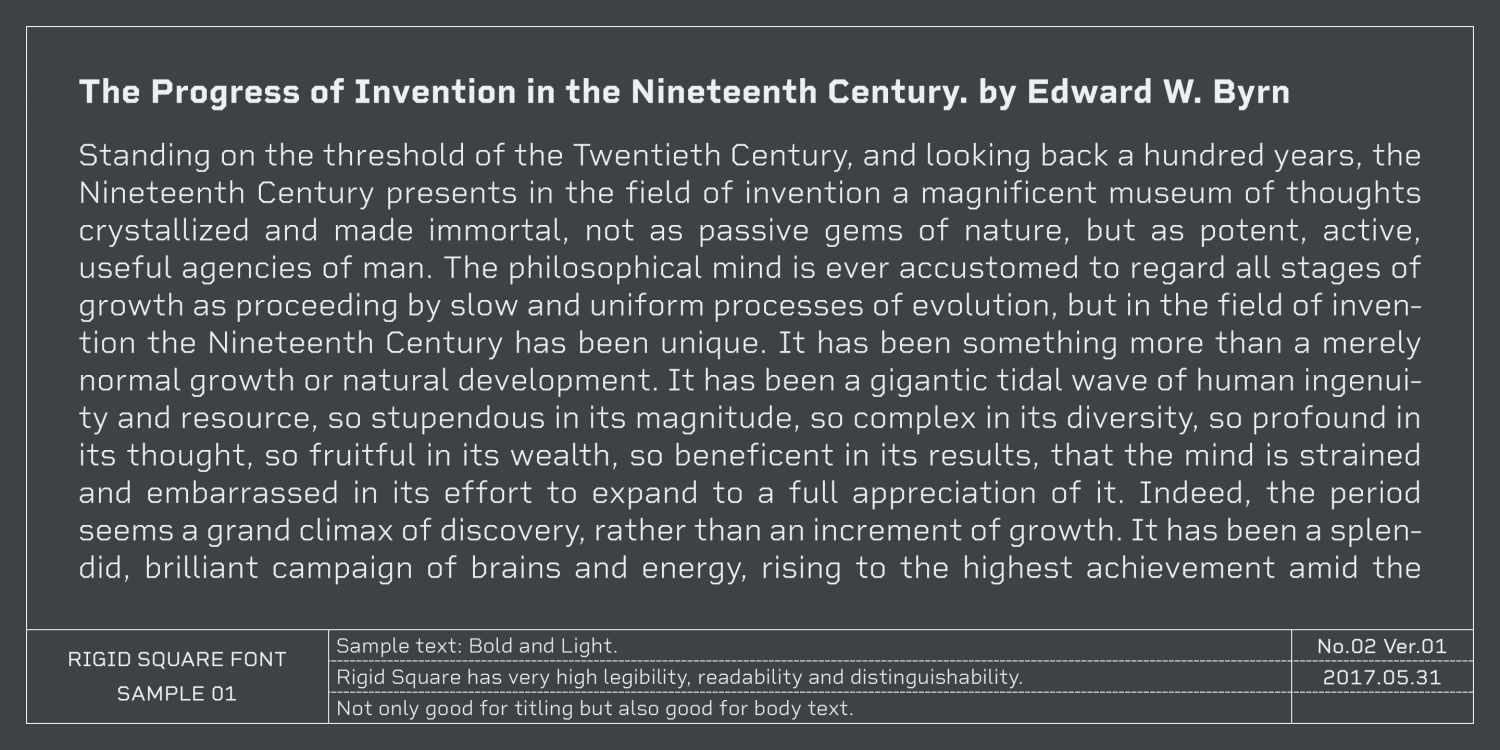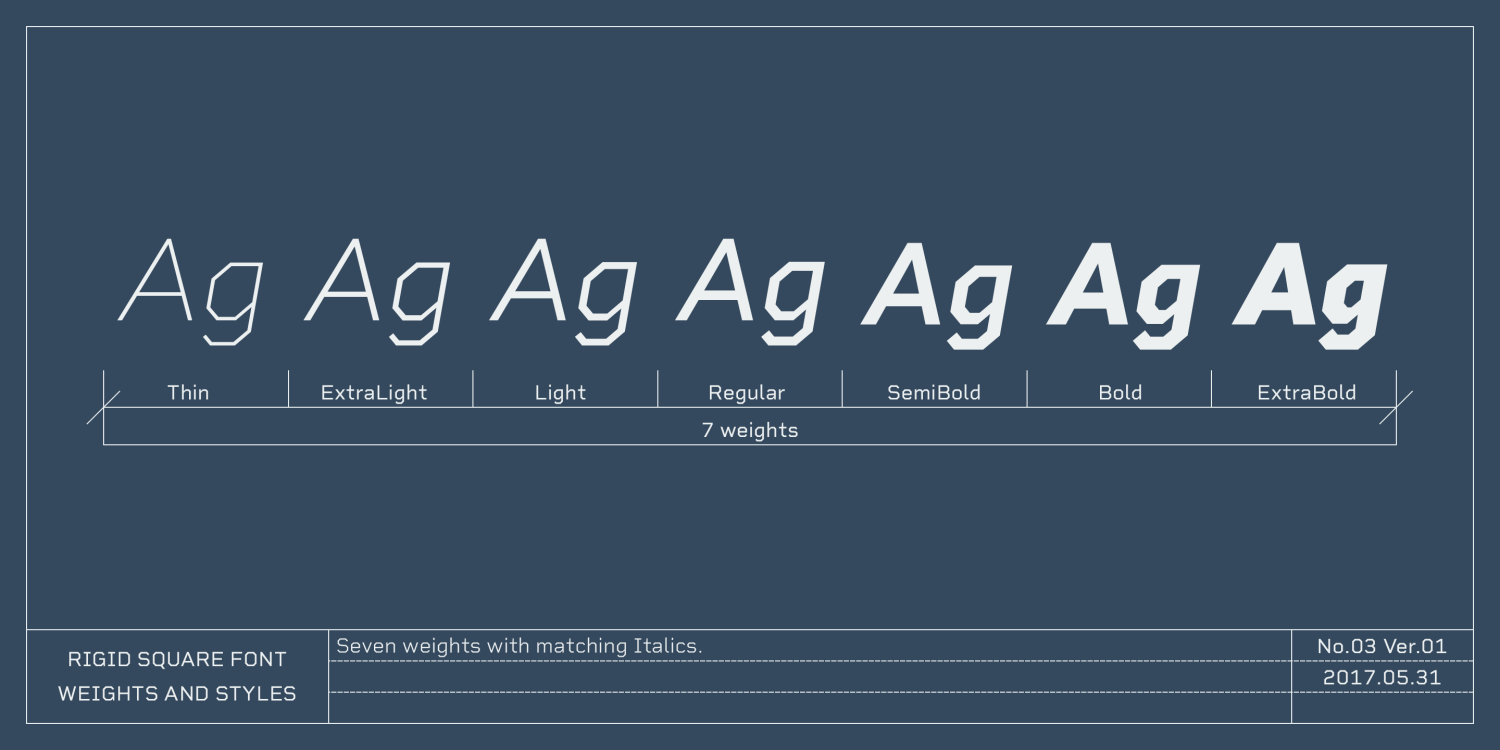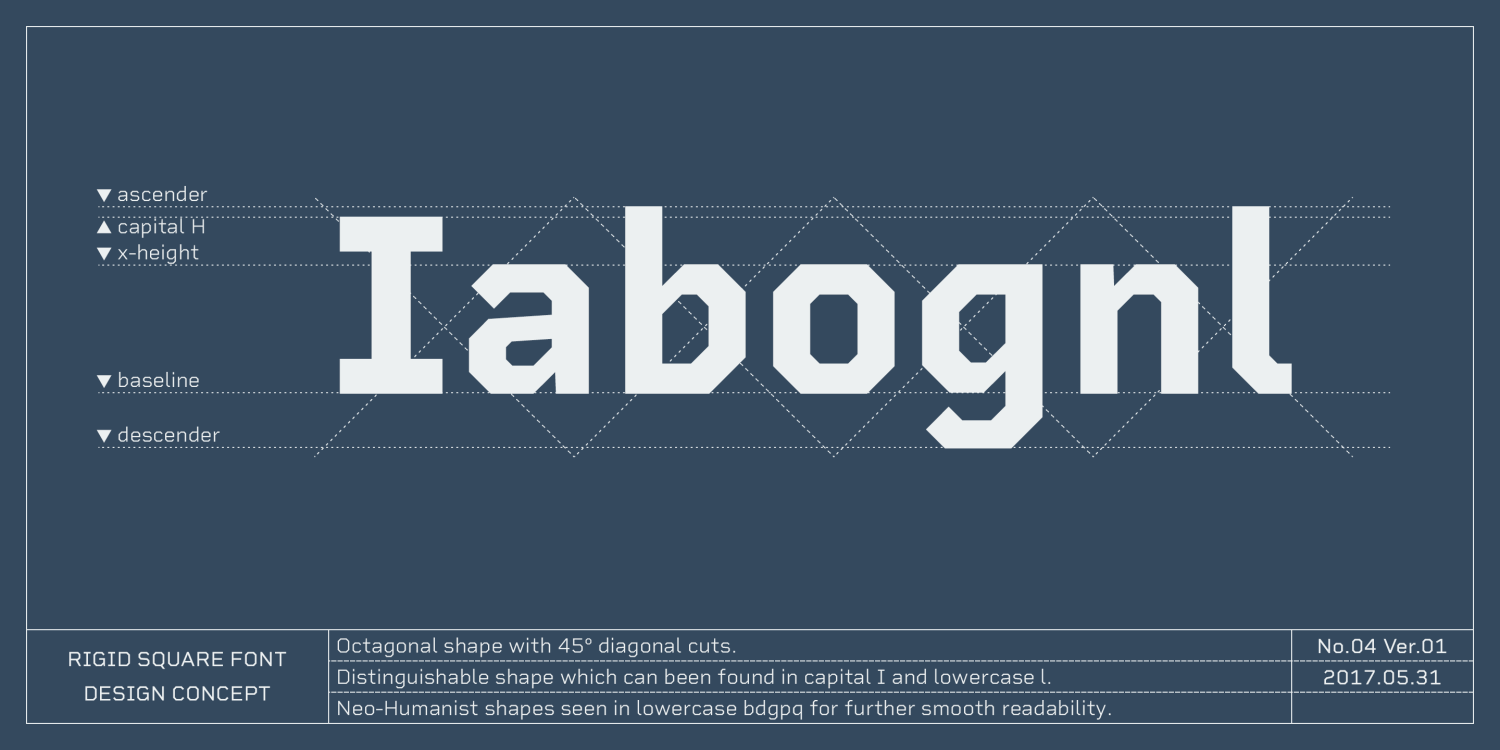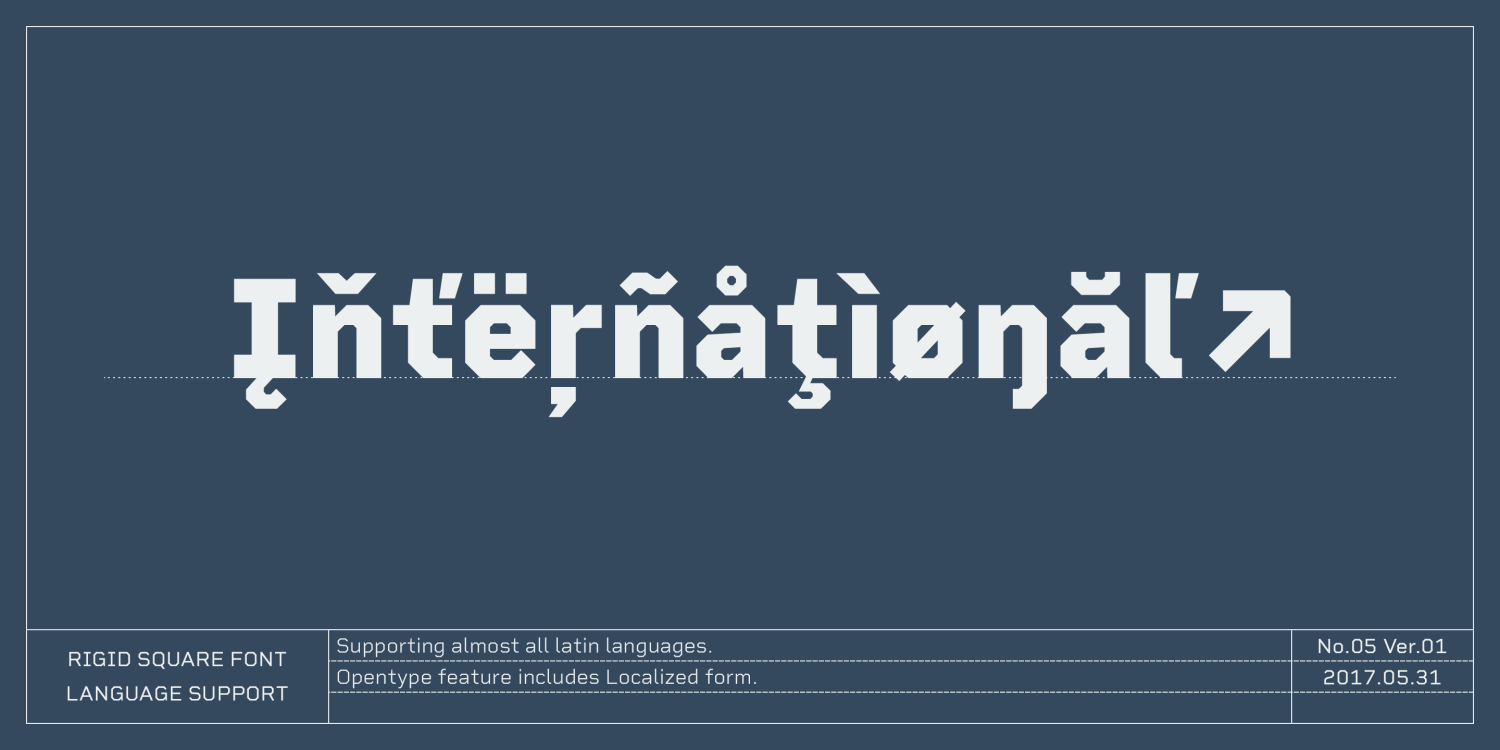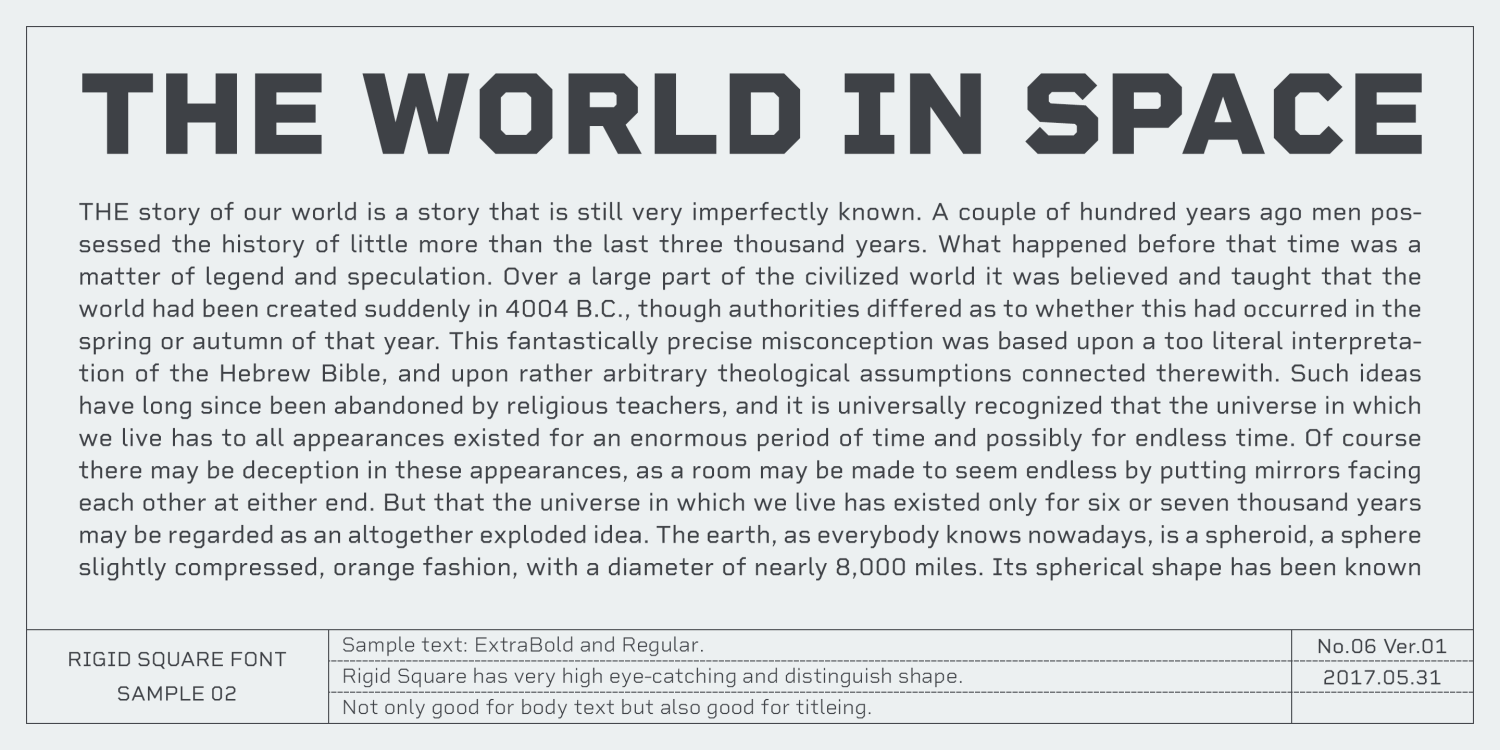
About Rigid Square
Rigid Square was made by following a simple rule: use only octagonal shape and 45 degree cuts. Very geometric shape but designed especially for body text, long sentence such like a mechanical instructions. Capital I and lower l have distinguishable shape.…